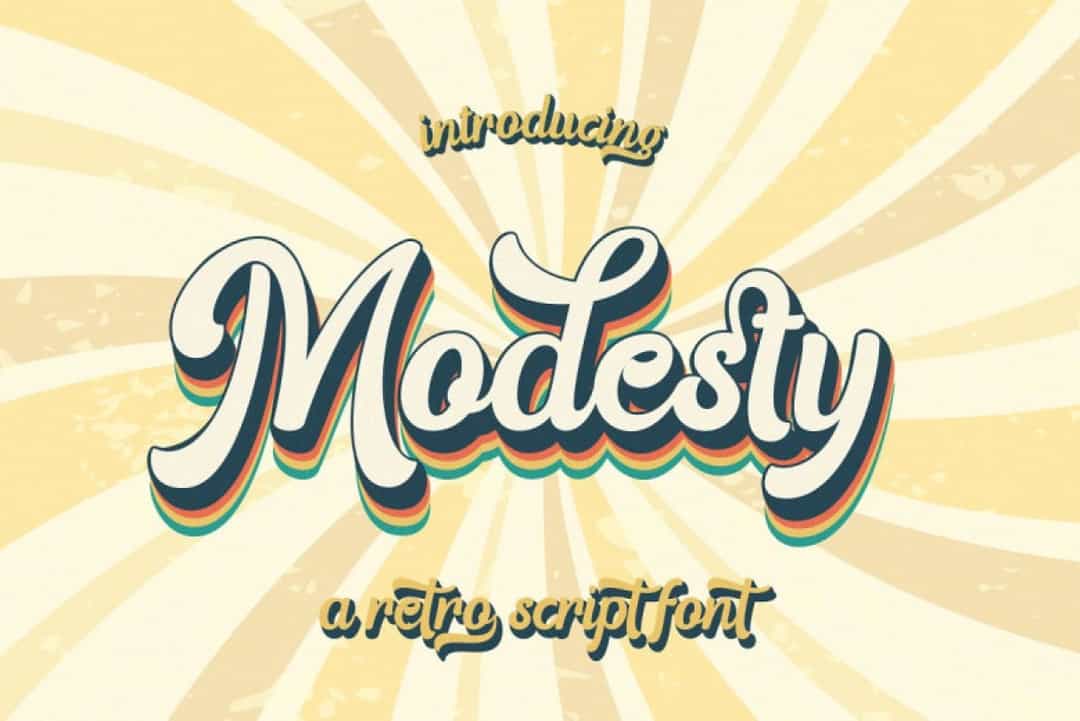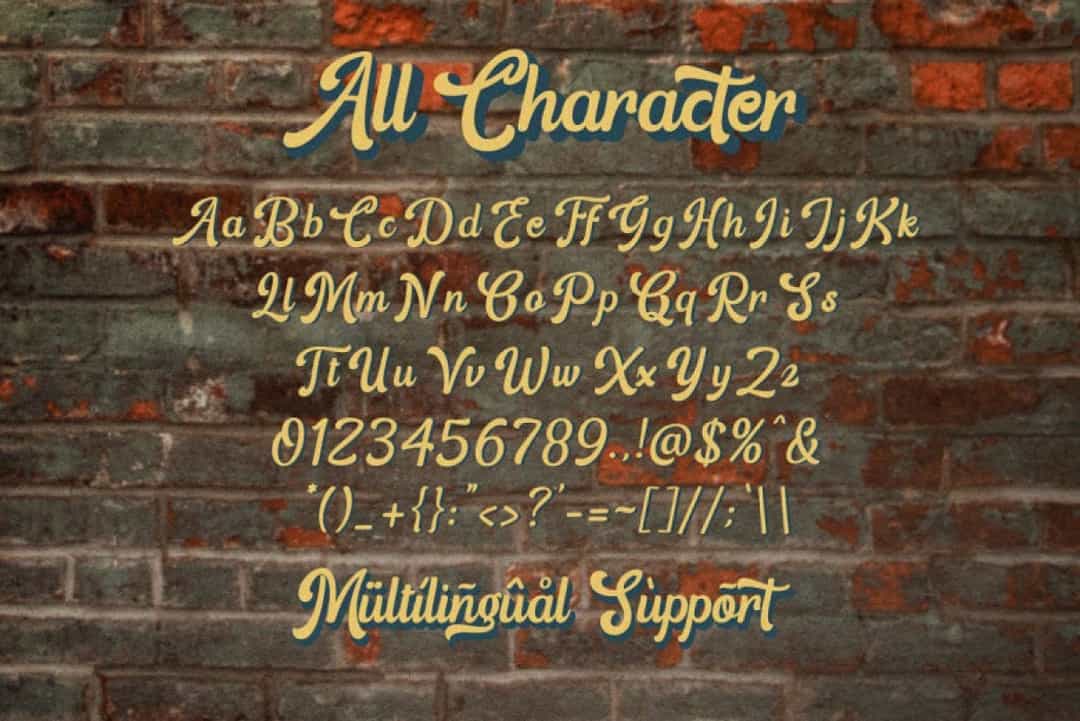
Modesty is a retro and groovy script font designed with an exciting, modern vibe. Perfect for use in branding displays and boho-inspired projects to convey an exciting and retro aesthetic, Modesty font can also be utilized in graphic designs like posters, logos or T-shirt printing to give them that vintage flair! Useful font for graphic designs like posters, logos or T-shirt printing as well as quotes, T-shirt printing or many other uses – give it a try now!